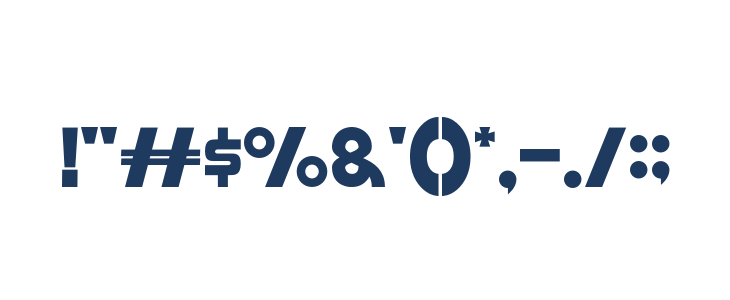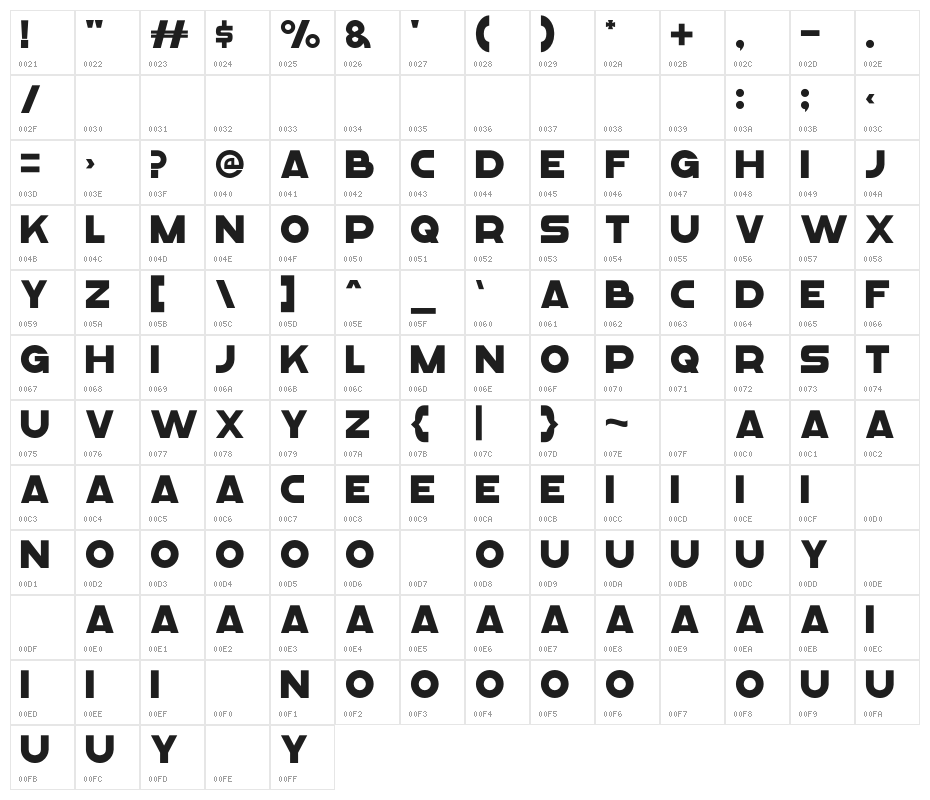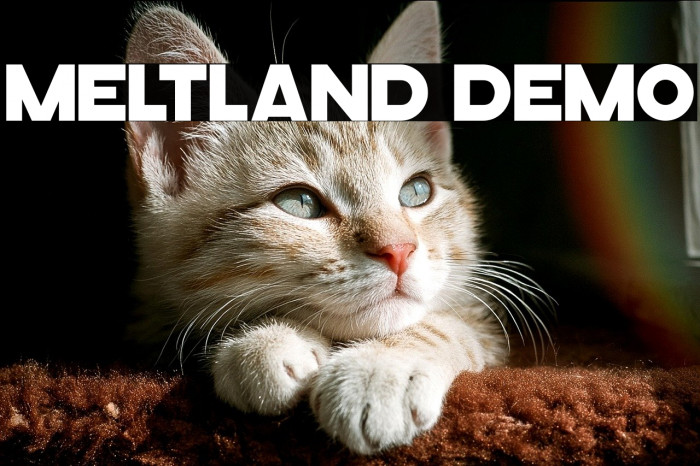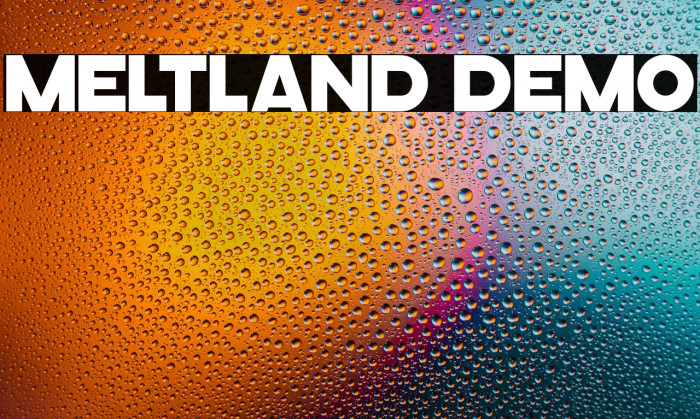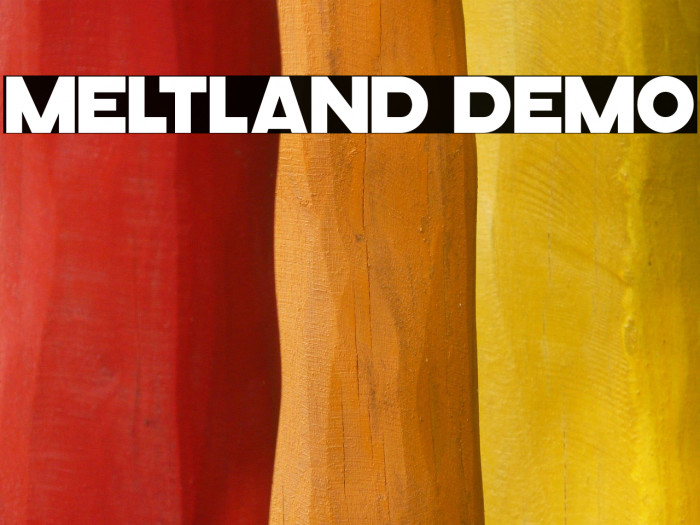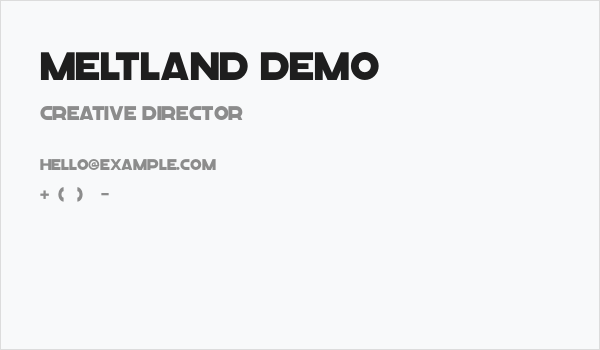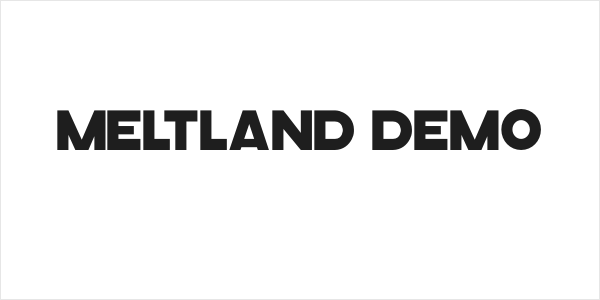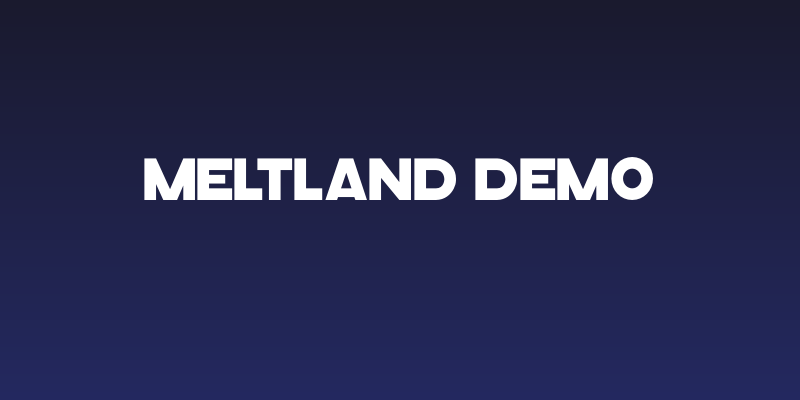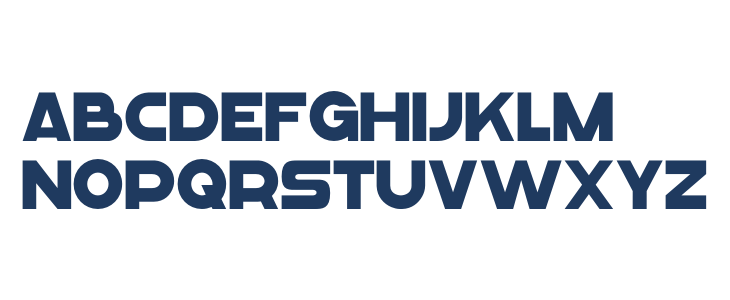
Meltland Demo Font
Meltland Demo Description
This font features a bold and geometric design, characterized by its strong, angular lines and uniform stroke widths. The uppercase letters are particularly striking, with a modern and futuristic aesthetic that is both eye-catching and assertive. The lowercase letters maintain the same boldness, ensuring consistency throughout the typeface. The numerals and special characters are designed to match the overall style, offering a cohesive look. This font's design is ideal for making a strong visual impact, with its clean lines and solid presence.